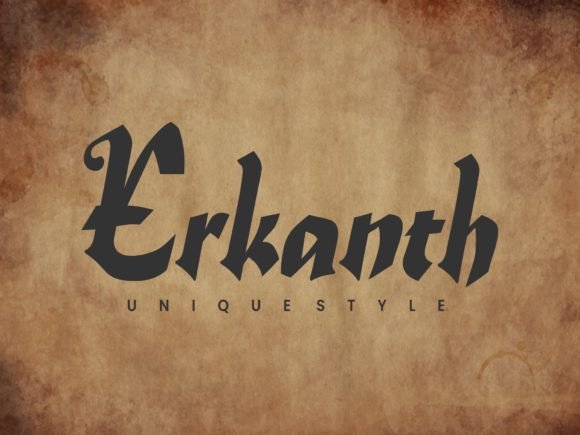
Journey into the realm of exquisite typography with Erkanth, a font of captivating beauty and unrivaled elegance. Inspired by the intricate artistry of blackletter calligraphy, Erkanth exudes a timeless charm that transcends the boundaries of traditional design.
With its bold strokes, sharp angles, and intricate details, Erkanth commands attention and leaves a lasting impression. Its meticulously crafted glyphs dance across the page, evoking a sense of wonder and enchantment. Whether gracing a logo, adorning a magazine cover, or captivating social media feeds, Erkanth elevates your designs to new heights of sophistication.
Immerse yourself in the boundless creative possibilities that Erkanth unlocks. Its versatility knows no limits, as it seamlessly adapts to a myriad of design projects. From the sleek modernity of a UI design to the rustic charm of a vintage poster, Erkanth possesses the uncanny ability to transform your vision into a reality.
Let Erkanth be your muse, guiding you through the labyrinth of creativity. Its alluring curves and distinct personality will ignite your imagination, inspiring you to craft designs that resonate with your audience. Embrace the power of Erkanth and unlock the full potential of your creative genius.
Erkanth, a font of timeless beauty and boundless versatility, awaits your command. Dare to embrace its allure and embark on a journey of typographic excellence.